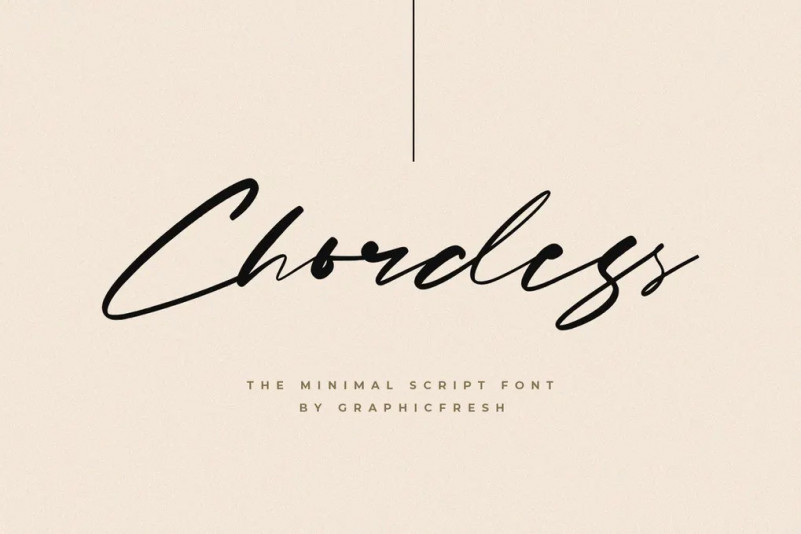
Chordess Font
Introducing Chordess – The Minimal Script Font. It comes with an elegant and feminine style which is perfect to make any design stand out! This font is perfect for branding, wedding invites, magazines, mugs, business cards, quotes, posters, and more.